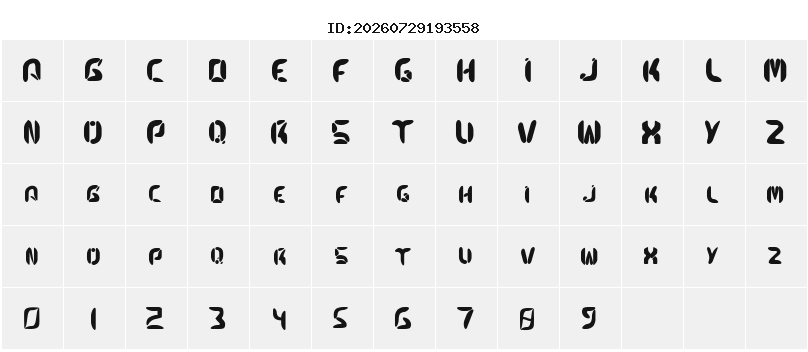
Kismet Preview
• Font Name: Kismet
• Font Style: UltraBlack
• Full Font Name: Kismet UltraBlack
• PostScript Name: Kismet-UltraBlack
• Manufacturer: Shaz and Daz
About Kismet.ttf
Kismet.ttf is a modern, elegant sans-serif font designed for ultimate readability and visual harmony. Perfect for branding, headlines, web design, and print materials.